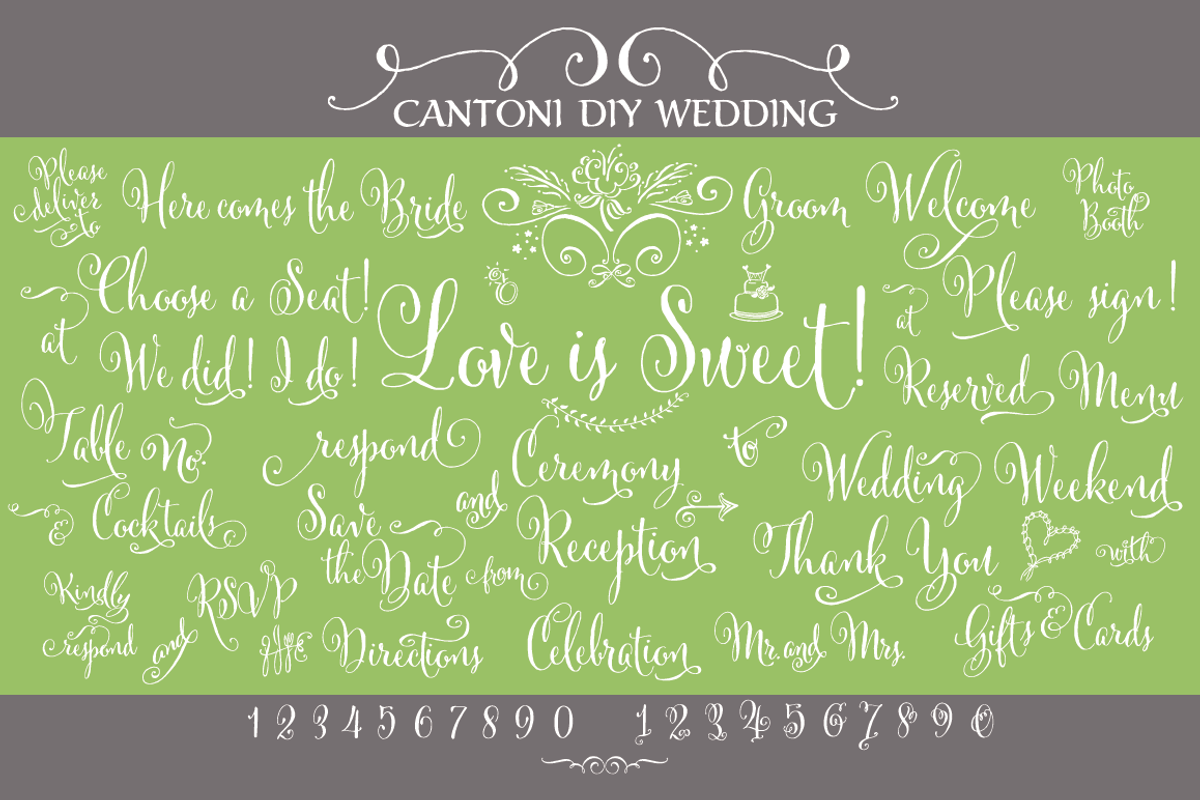
Cantoni DIY Wedding Font
Cantoni DIY Wedding Font by Debi Sementelli is a font selected for branding, posters, packaging, typography.
Cantoni DIY Wedding Font by Debi Sementelli fits naturally into Branding, posters, packaging, typography.